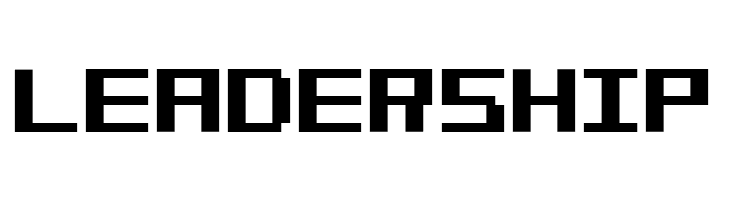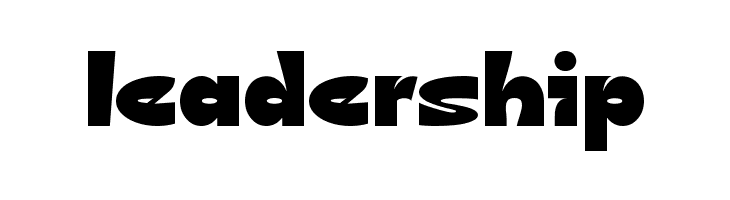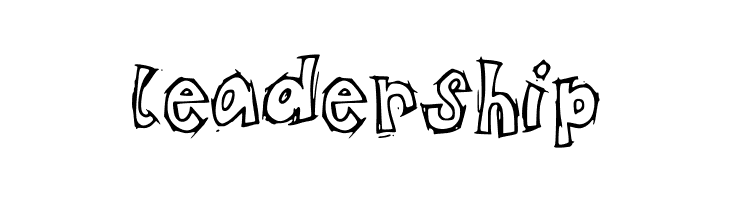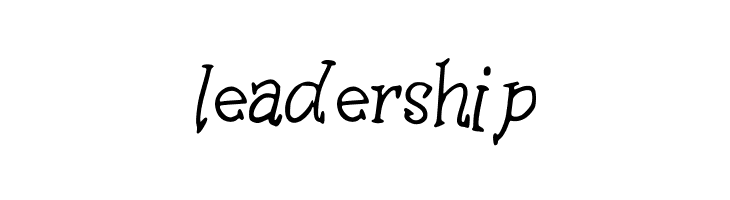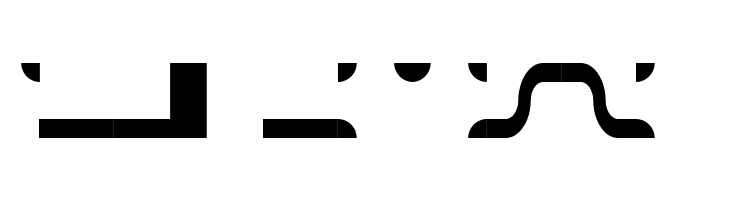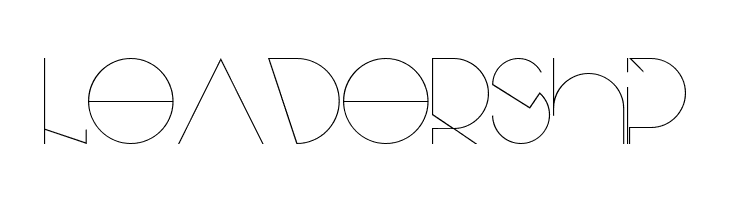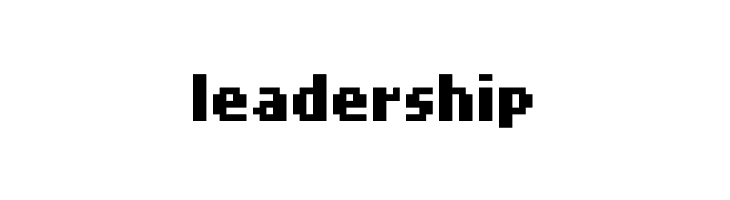
A bold, vintage-inspired font with a modern twist, ideal for headlines and branding.
A modern serif font with tall, narrow letterforms and high contrast strokes.
A bold, geometric font with a modern and artistic style.
A bold, decorative font with vintage and gothic elements.
A flowing, elegant script font with graceful curves and playful flourishes.
A decorative dotted font ideal for retro and playful designs.
A dotted, marquee-style font with a playful and retro appearance.
A geometric and modern font with clean lines and sharp angles, perfect for contemporary designs.
A pixelated, blocky font with a retro digital aesthetic.
A stylized, calligraphic font with sharp angles and fluid curves.
A bold, expressive handwritten font with playful strokes.